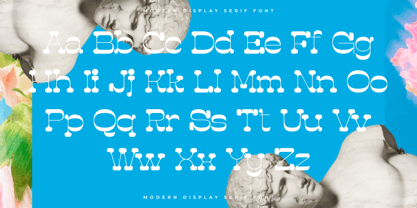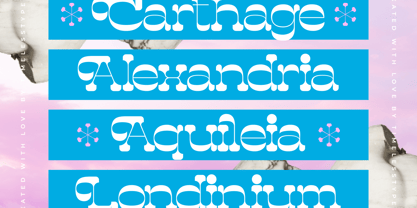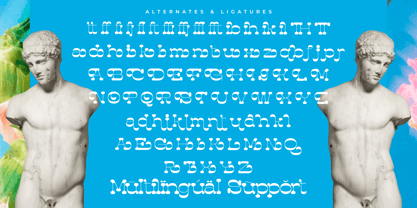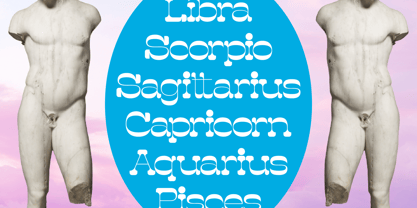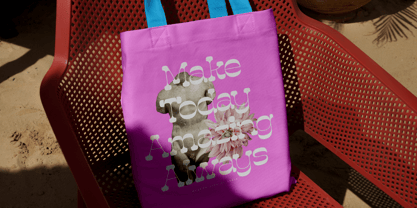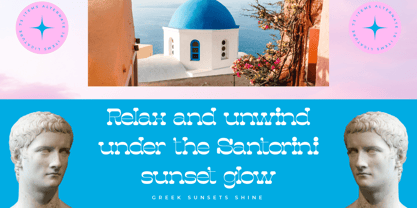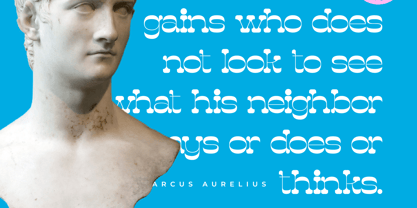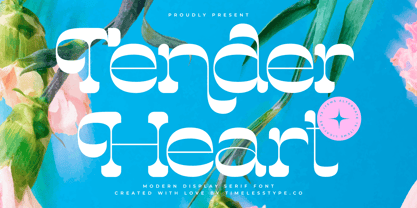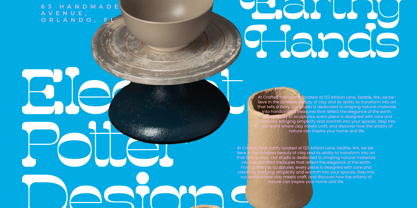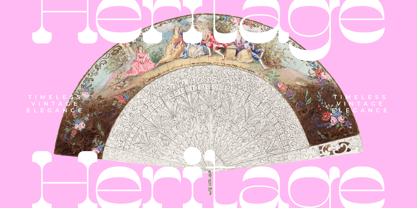
Tender Heart
The Tender Heart Font Family was designed by Heru Utama Putra and published by Timelesstype Studio. Tender Heart contains 2 styles and family package options. More about this family
Tender Heart - Modern Display Serif Font , from Timelesstype, Suitable for any projects such as: logos, branding projects, homeware designs, product packaging, mugs, quotes, posters, shopping bags, t-shirts, book covers, name card, invitation cards, greeting cards, label, photography, watermark, special events, and all your other luxury and beautiful projects that need a Luxury Serif taste.